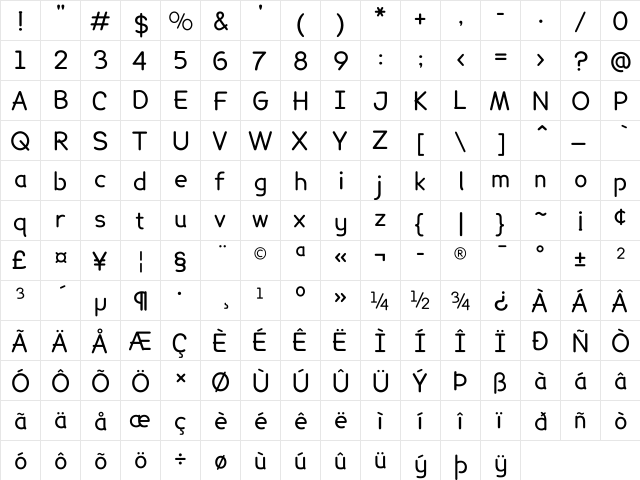
Lexie Readable Regular
Design Context for Lexie Readable Typeface
Lexie Readable offers clean, dependable letterforms without strong stylistic allegiance, making it a practical choice for designers who need flexibility.
Pro Tip: Pair Lexie Readable with a font of contrasting weight or personality to build a more expressive typographic hierarchy.